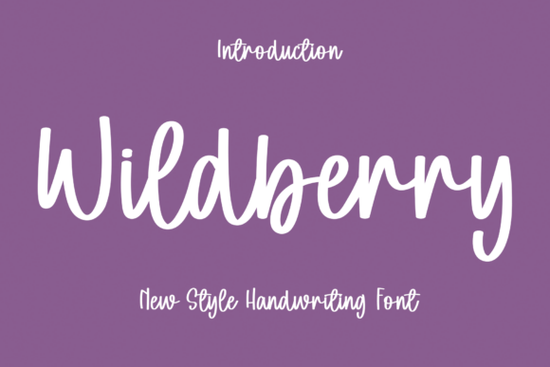
When you're working on wedding invitations, boutique branding, or editorial layouts, the right script font can make or break the design. Wildberry Font is an elegant, fluid handwritten typeface that brings a refined, modern feel to any project. It's designed for creatives who want that handwritten quality without sacrificing readability or polish.
Whether you're a designer building client mood boards, a crafter making printable wall art, or a small business owner creating product tags, this font fits naturally into upscale, feminine, and romantic design styles.
What Makes the Wildberry Font Stand Out Among Handwritten Scripts?
There are thousands of script fonts available, so what makes this one worth your attention? A few things:
- Smooth, consistent letterforms. The strokes flow naturally without feeling forced or overly decorative. Each letter connects in a way that mimics real handwriting.
- Modern elegance. It avoids the overly ornate look of vintage calligraphy fonts while still feeling luxurious and intentional.
- Versatile weight and spacing. It reads well at both small and medium sizes, which matters when you're working on everything from wedding font projects to social media graphics.
The result is a typeface that looks expensive and custom-made, even when you're using it straight out of the box.
What Can You Use This Font For?
This is where the Wildberry Font really shines. Its elegant yet approachable style makes it a strong pick for a wide range of creative projects:
- Wedding stationery invitations, RSVP cards, save-the-dates, menu cards, and table numbers
- Event branding bridal showers, engagement parties, milestone birthdays, and baby showers
- Editorial and lifestyle work magazine headers, blog graphics, quote overlays for photography
- Product packaging candle labels, soap wrappers, skincare branding, and gift tags
- Digital products printable planners, Canva templates, and Etsy shop listings
- Social media content Instagram story templates, Pinterest pins, and promotional banners
If you sell print-on-demand products or run an Etsy shop, a font like this can help your listings look cohesive and professional without needing to hire a calligrapher.
How Does It Compare to Other Script Fonts?
It helps to see how this font stacks up against similar options. If you've browsed script fonts before, you may have come across a few of these popular choices:
- The Gardenia typeface leans more botanical and organic, making it a solid pick for nature-inspired designs.
- Rose Cake script has a softer, rounder look that works well for bakery branding and feminine product packaging.
- Honey Notes font carries a warm, casual feel that suits lifestyle blogs and cozy brand identities.
- Highway Heritage typeface has a vintage-inspired character that fits retro and Americana-style projects.
Each of these fonts serves a slightly different mood. The Wildberry option sits in a sweet spot between formal and friendly polished enough for luxury branding, but approachable enough for everyday creative use.
What Design Pairs Well With This Script?
A good script font rarely works alone. Pairing it with the right secondary typeface keeps your layouts balanced and readable. Here are a few practical pairings:
- Clean sans-serif fonts like Montserrat or Lato for body text the contrast keeps things legible
- Light serif fonts for a romantic, editorial look on printed materials
- All-caps sans-serifs for subheadings that frame the script headline nicely
A general rule: use the script font sparingly for headlines, names, or accent text, and let a simpler typeface handle the bulk of your content.
Tips for Getting the Most Out of Elegant Script Fonts
Here are a few practical things to keep in mind when working with fonts like this:
- Mind the letter spacing. Some script fonts need a touch of kerning adjustment, especially at larger sizes.
- Test at multiple sizes. Make sure it holds up in the exact size you plan to use what looks great on screen might need tweaking for print.
- Check the license. Always confirm the font license covers your intended use, especially for print-on-demand or commercial projects.
- Use color intentionally. Deep tones like forest green, burgundy, or navy tend to complement elegant scripts beautifully.
Quick Checklist Before You Download
- Confirm the font includes all the characters and glyphs you need (check for alternates and swashes).
- Verify the license fits your project personal use, commercial use, or POD.
- Download from a trusted source and install it properly on your system.
- Test it in your actual design software before committing to a full project.
- Pair it with at least one complementary sans-serif or serif font for balanced layouts.
If you're building a collection of go-to script fonts for wedding and stationery work, this one is a strong addition. It covers that modern elegant niche without feeling generic, and it's versatile enough to use across both print and digital projects. Take a few minutes to preview it with your own text and see how it fits your next design.